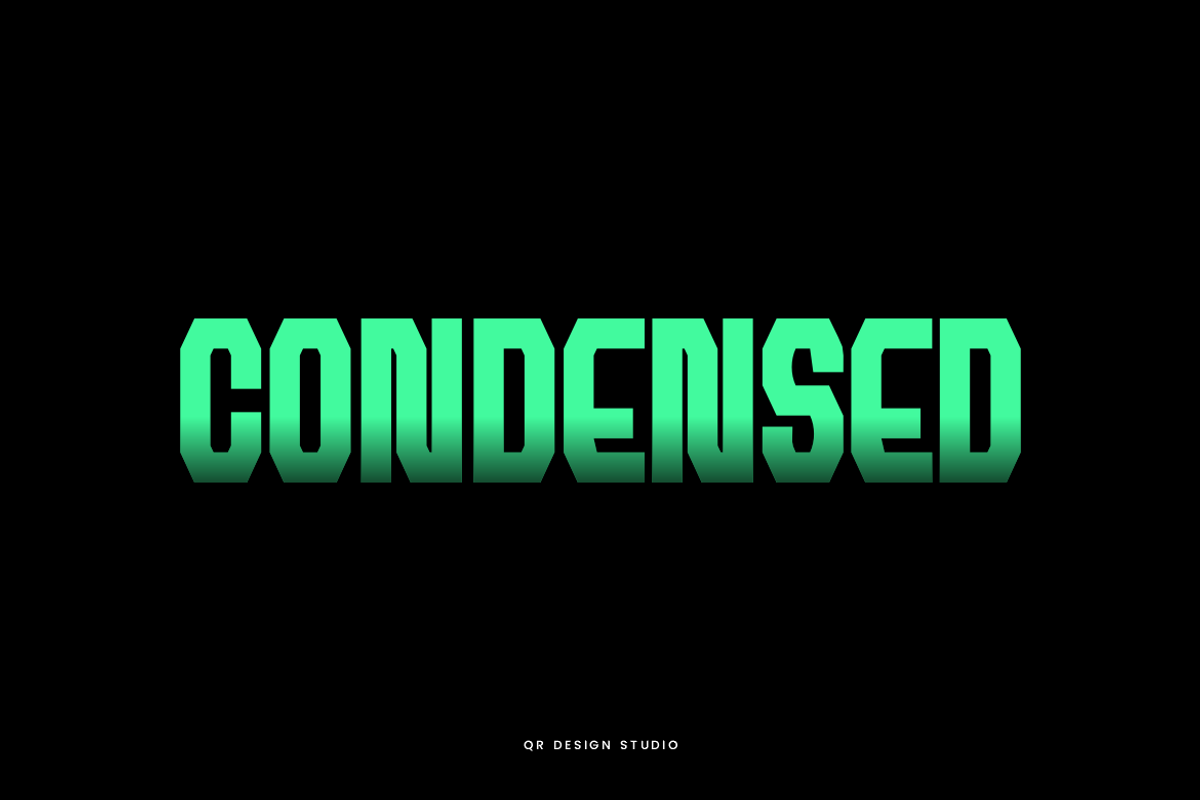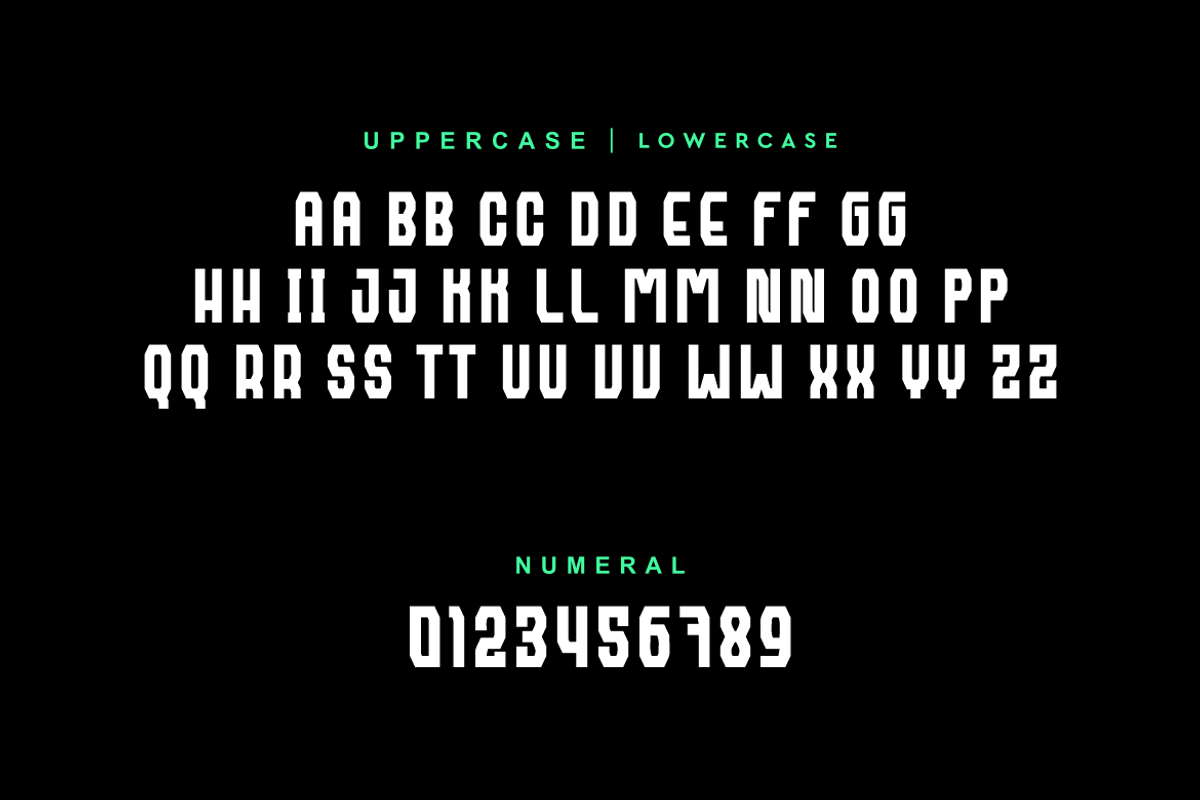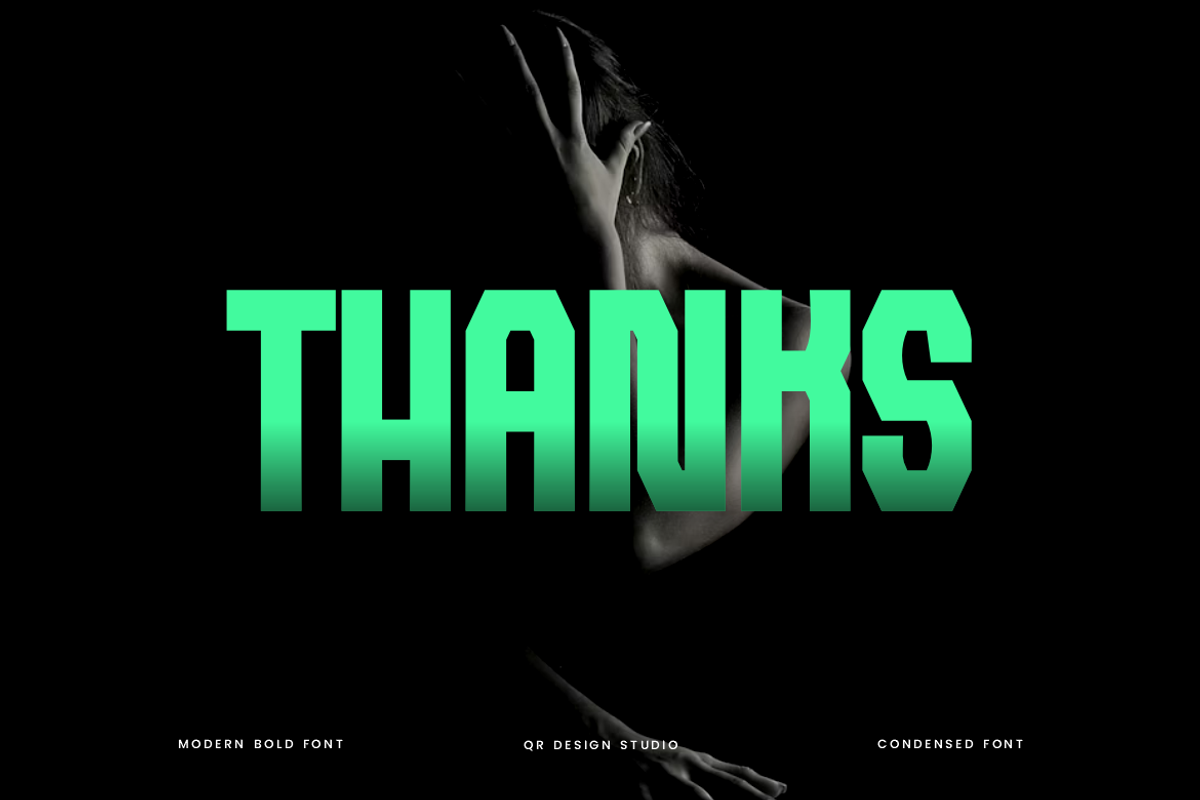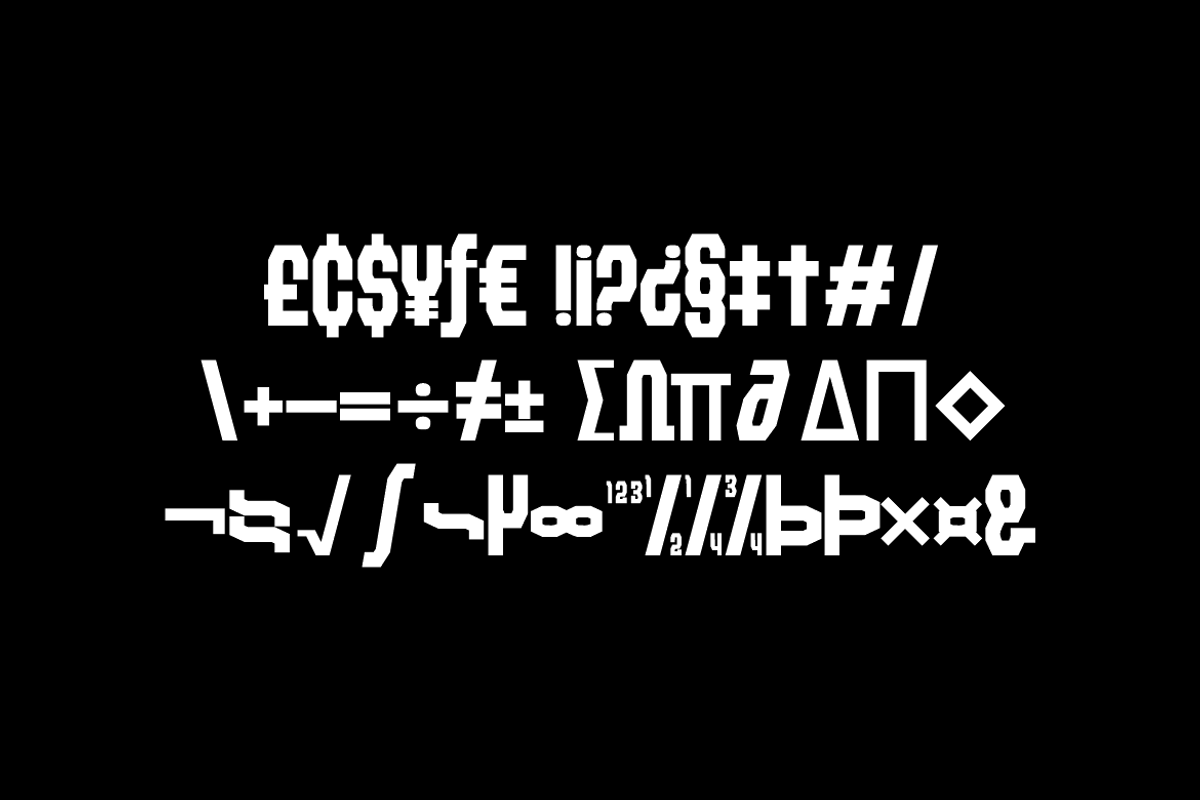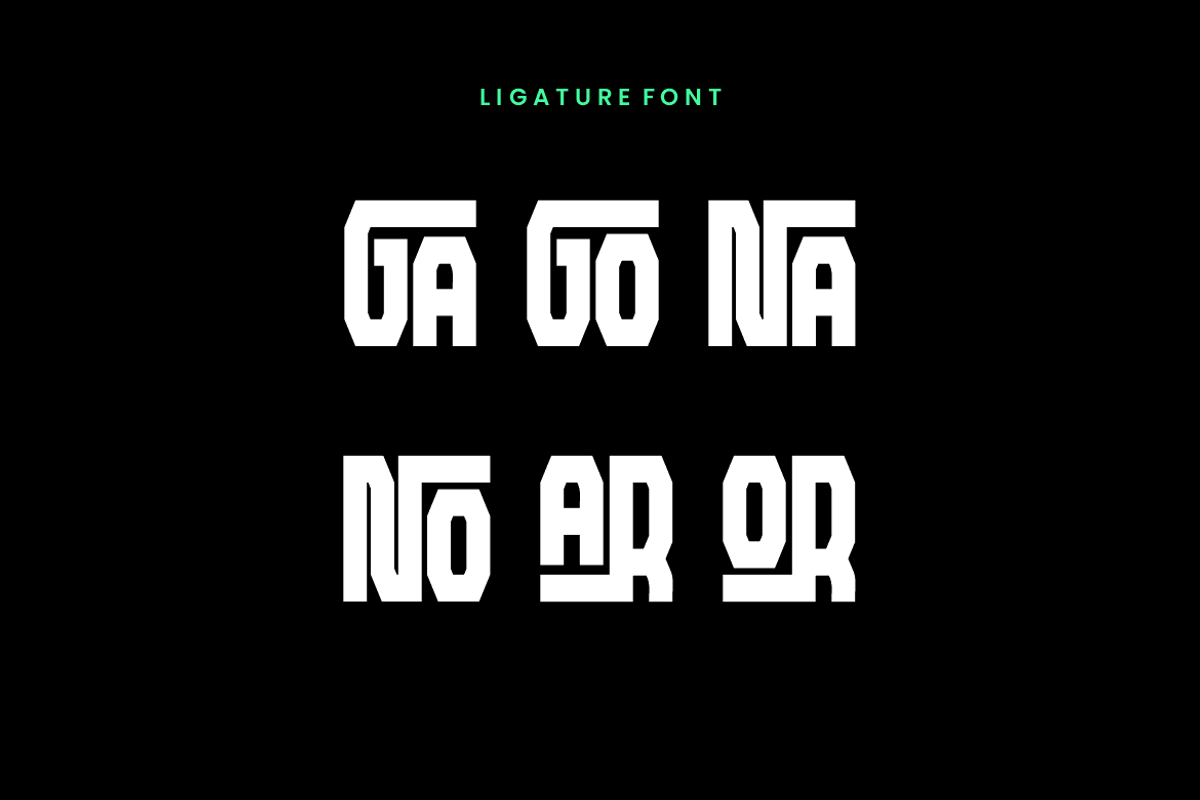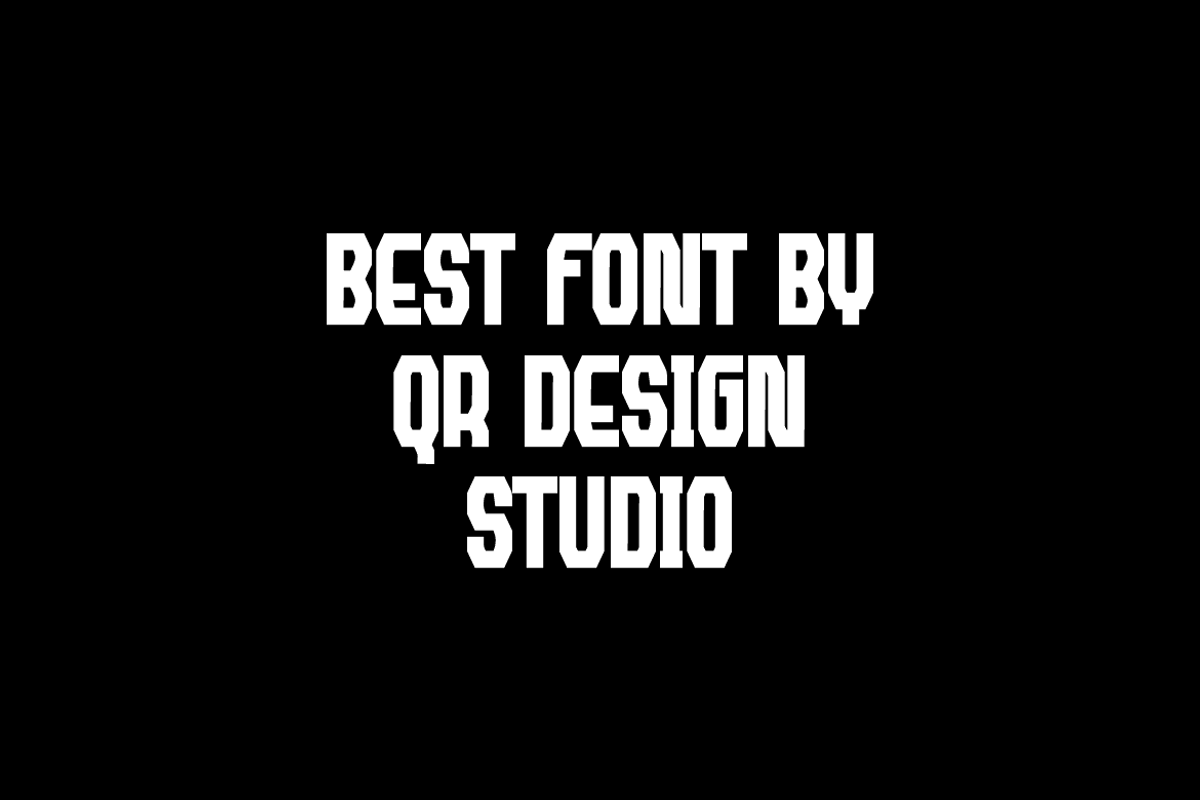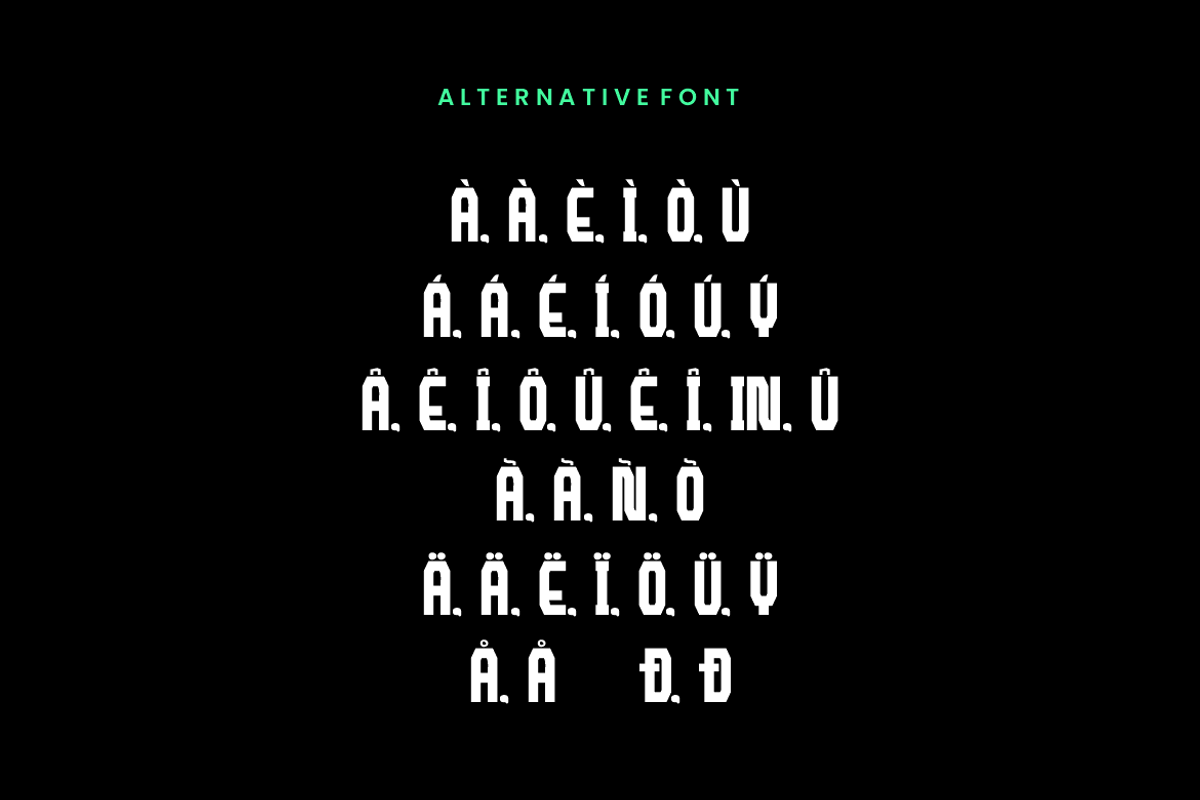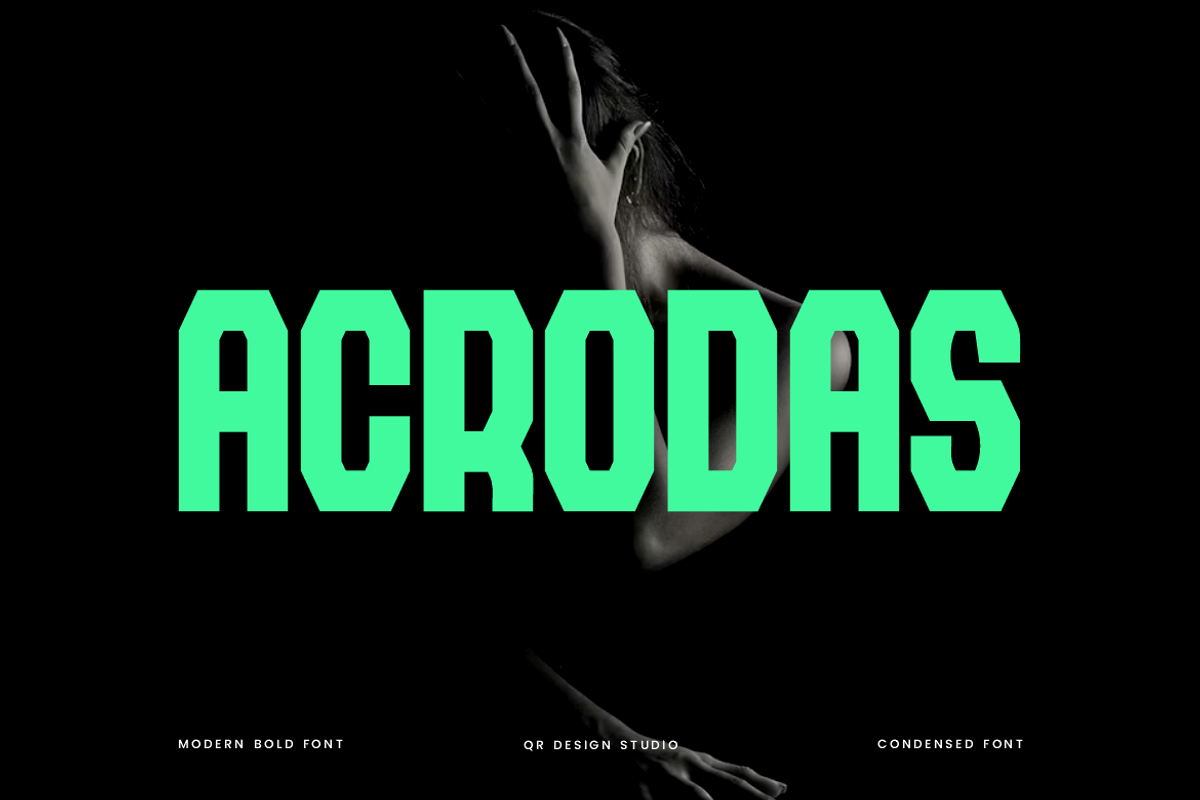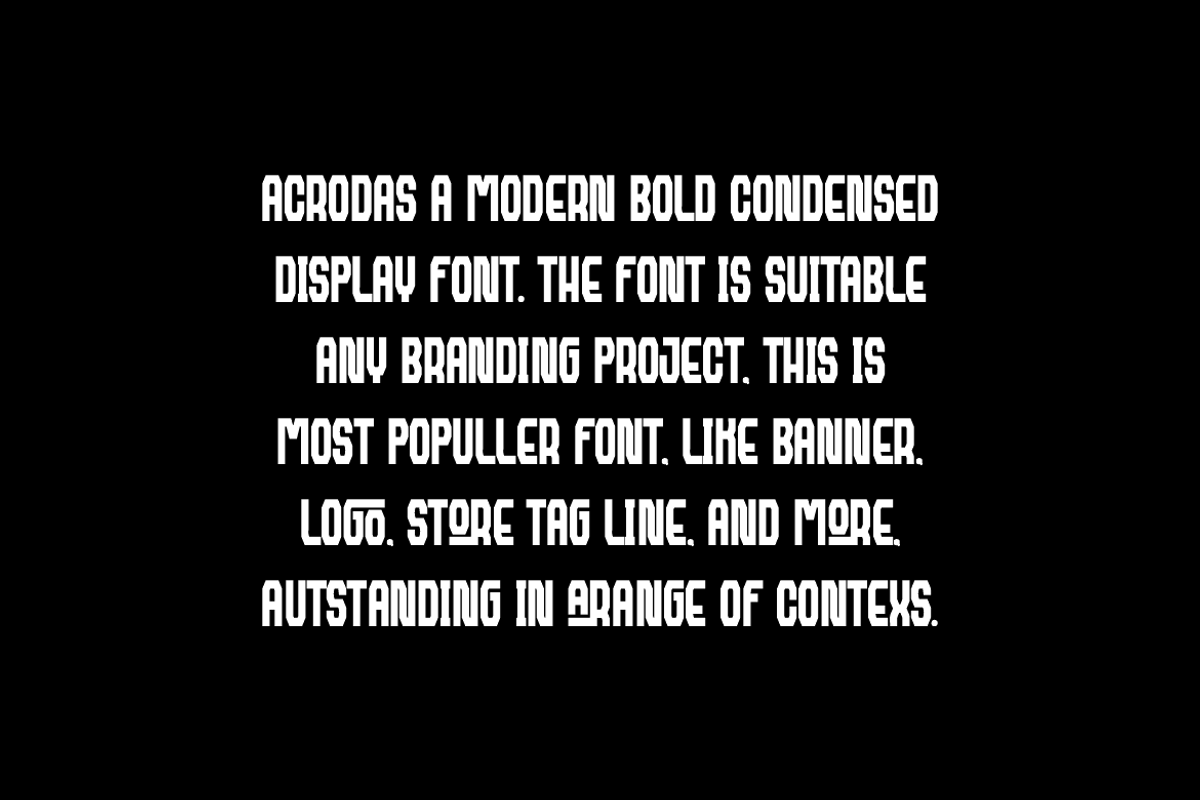
Acrodas - Condensed Display Font
Acrodas Font is a bold and authentic display font. The font is suitable for any branding project like poster, logo, sport, and many more. Outstanding in a wide range of contexts.